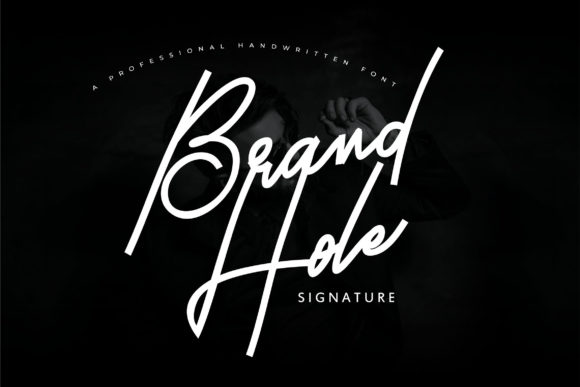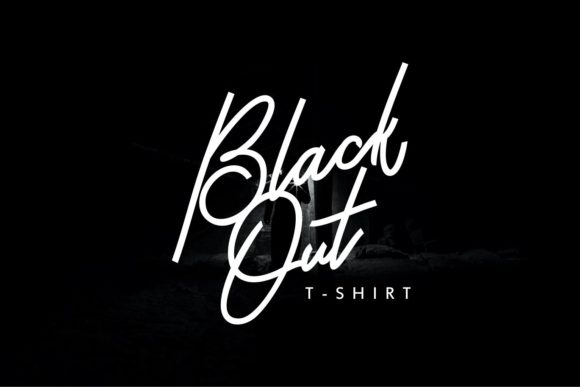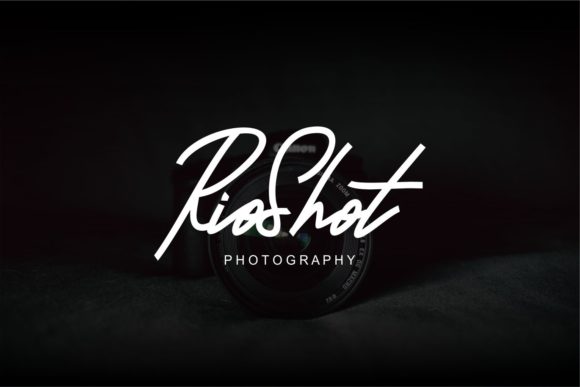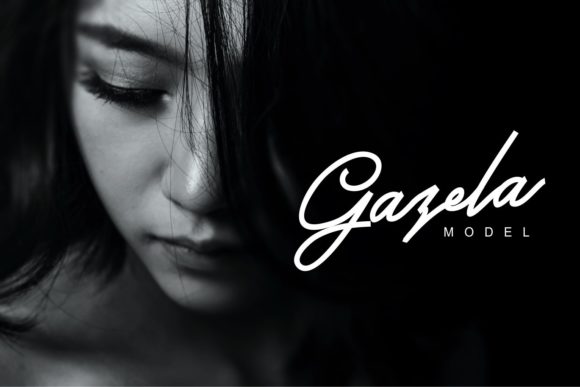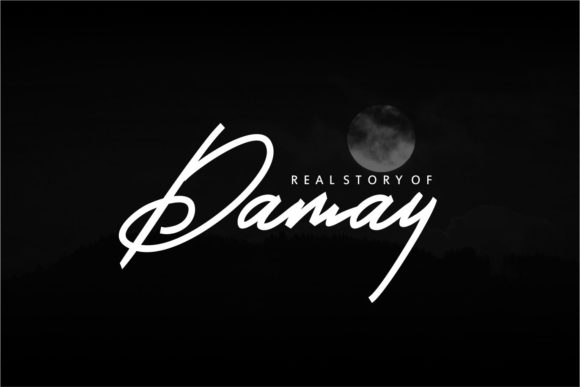
Brand Hole Font
About Brand Hole Font
Brand Hole is a stunning and light handwritten font with a cool feel. Use it to add a smart feel to any design project.